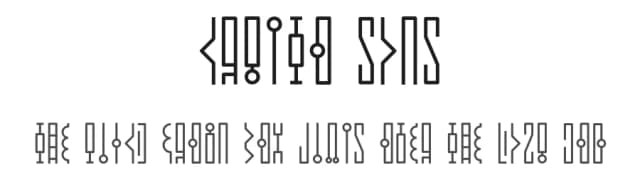
About LAL Proto Font
LAL Proto is a dingbat font designed by Heitor Berguerand. It includes 75 glyphs, a regular weight, TTF (TrueType) format, and 91 languages. LAL Proto is free to download; check the license details on this page before commercial use. Dingbat fonts like LAL Proto work best for icons, ornaments, bullet points, and decorative accents.
LAL Proto Font is a versatile dingbats font that works for both headings and body text. Pair it with a contrasting sans-serif or serif font to add visual interest and a clear distinction between titles and body copy.
LAL Proto Font
LAL Proto Font is a dingbats typeface by Heitor Berguerand, ideal for logos, invitations, branding, and creative projects.